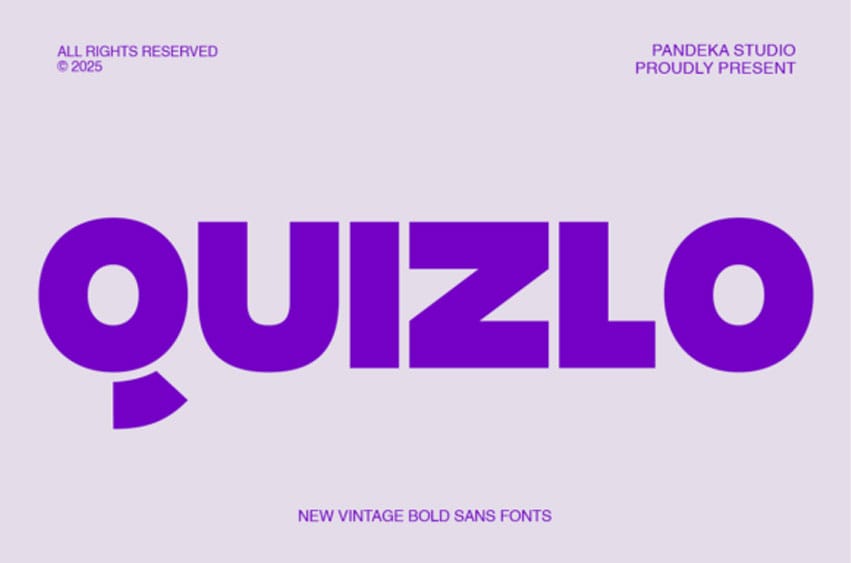
Quizlo Font is a bold and playful sans-serif font crafted to grab attention and infuse food branding with a sense of fun and flavor. Its chunky, rounded letterforms bring a friendly personality and create a deliciously bold visual impact, making it the perfect choice for the culinary world.
Ideal for restaurant logos, menus, packaging, food products, social media, and advertising, Quizlo helps brands express joy, creativity, and appetite appeal. With its simple yet striking Regular style, the font remains versatile and highly effective across both print and digital projects.